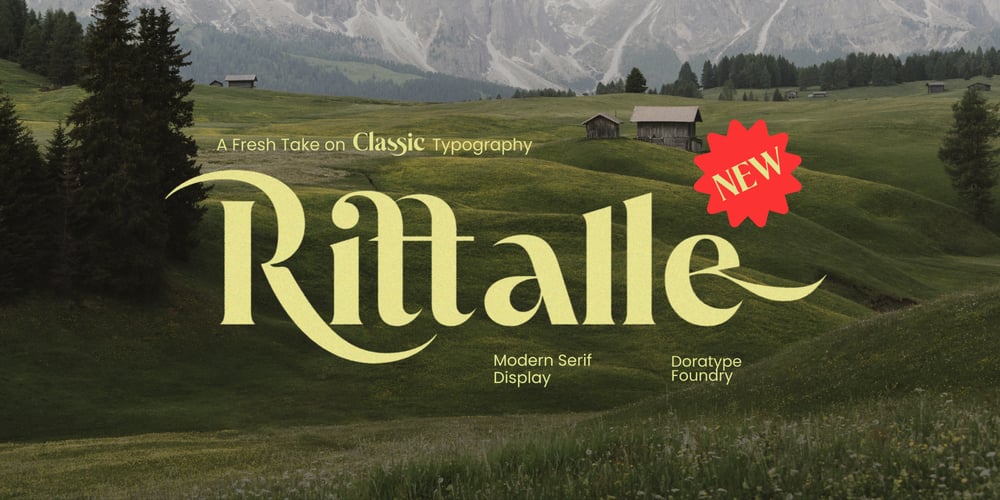
Rittalle
Rittalle font
Rittalle Font Family was designed by Zahratul Laila and published by Dora Typefoundry. Rittalle contains 1 styles and family package options. Introducing Rittalle, a serif typeface with high contrast and smooth curves that offers an elegant and modern impression with a touch of sharp edges, perfect for the needs of sophisticated design applications.Features All Uppercase and Lowercase 405 Glyphs Numbers & Symbols Supported Languages Alternates and Ligatures PUA Encoded We strongly recommend using programs that support OpenType features and Glyphs panels such as Adobe and Corel Draw applications, so you can view and access all variations of Glyphs.Families like this have become a true labor of love, making it as easy and enjoyable as possible. I really hope you enjoy it!if you have any questions or problems please contact email: doratypefoundry@gmail.comHappy designing!